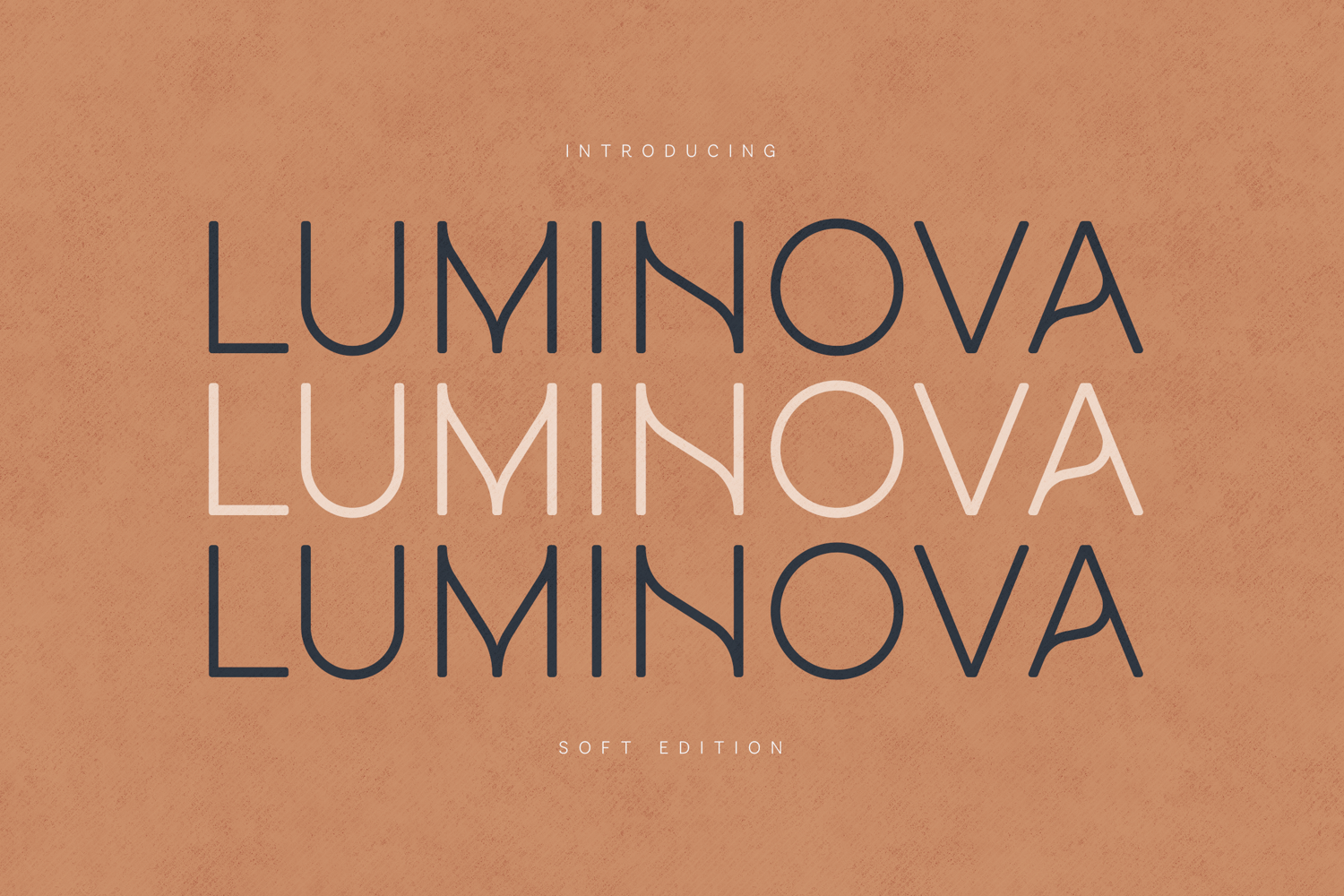
Luminova Modern Soft Geometric Sans Serif
Luminova is a modern geometric sans serif typeface designed with soft curves and balanced minimal forms.
The font features clean monoline strokes, rounded transitions, and carefully simplified letter structures that create a smooth and approachable visual tone. Its geometry is modern and precise while the softened terminals give the typeface warmth and elegance.
Luminova was designed to work beautifully in contemporary design environments where clarity and personality need to coexist. The open shapes and airy spacing make it highly readable while maintaining a distinctive stylistic character.
With its minimalist construction and soft geometric rhythm, Luminova fits perfectly in branding, modern interfaces, editorial layouts, and lifestyle design projects.